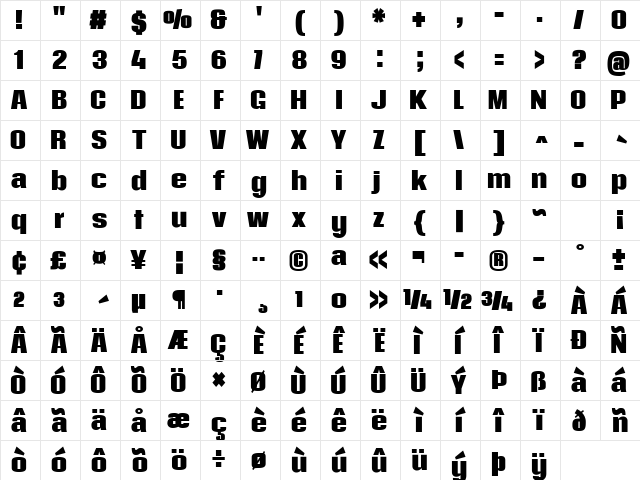
Coda Caption ExtraBold Free Font
Coda Caption ExtraBold
Foundry: vernon adams
Designer: vernon adams
Design Context for Coda Caption
Coda Caption is a composed and adaptable typeface that performs quietly and consistently across a wide range of design contexts. Its bold stroke weight gives it real presence on the page.